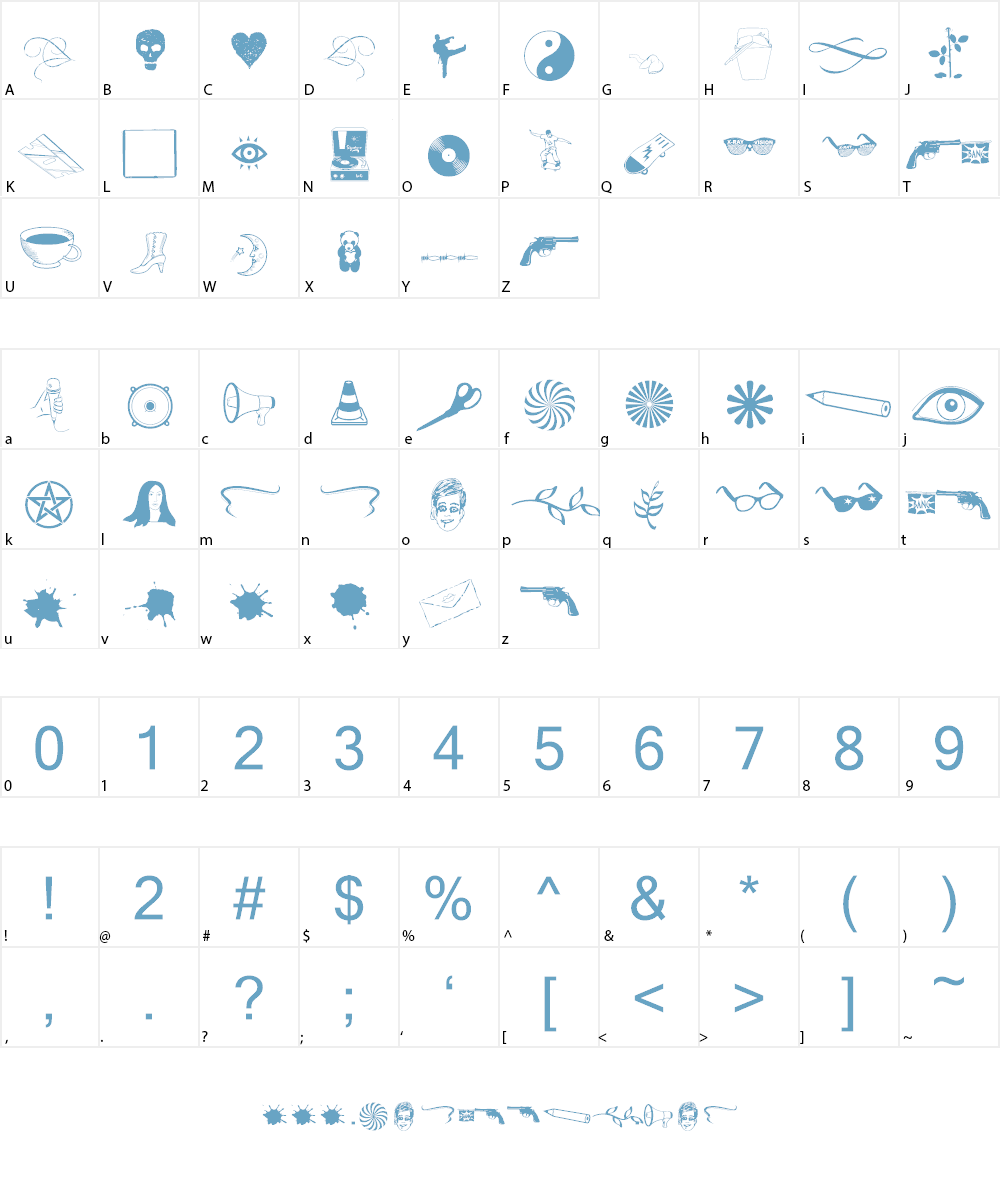
A mixed up dingbat font. These drawings are a mix of illustrations I did for various projects and for whatever reason I never used them and after cleaning up my computer one day I decided to make this font. Now with twice as many!